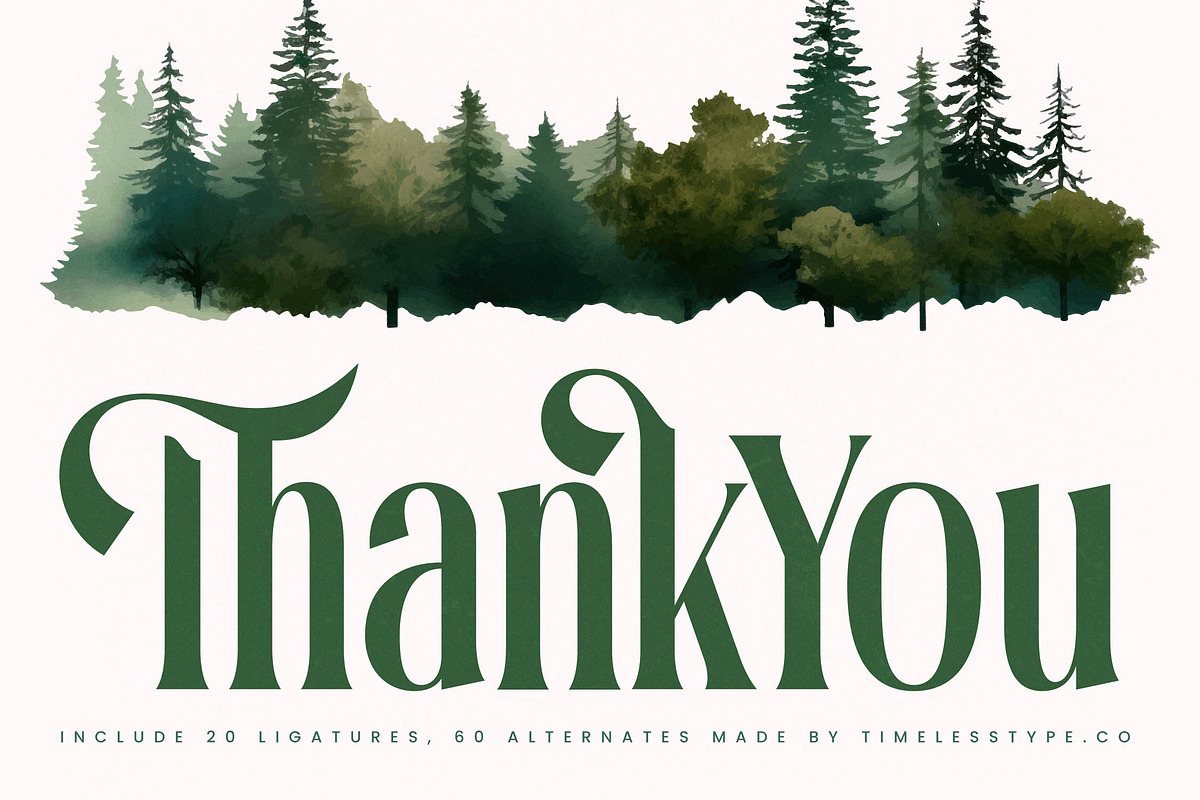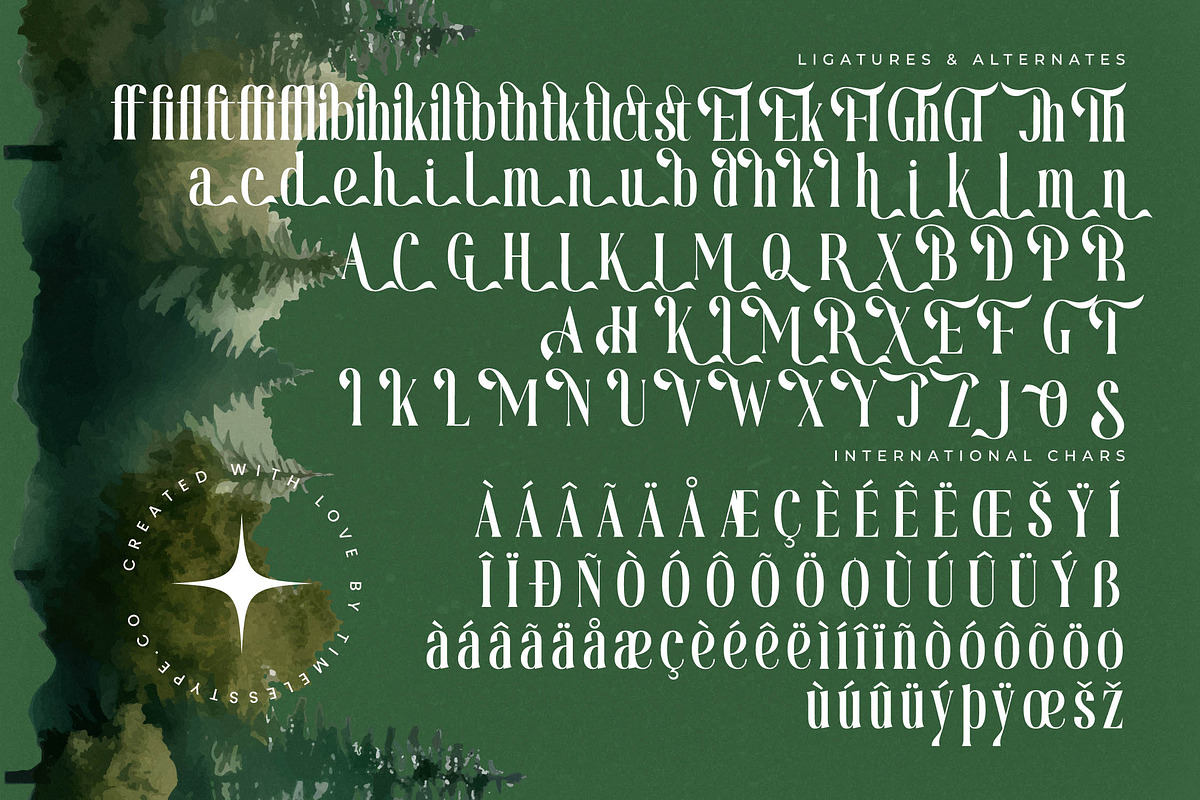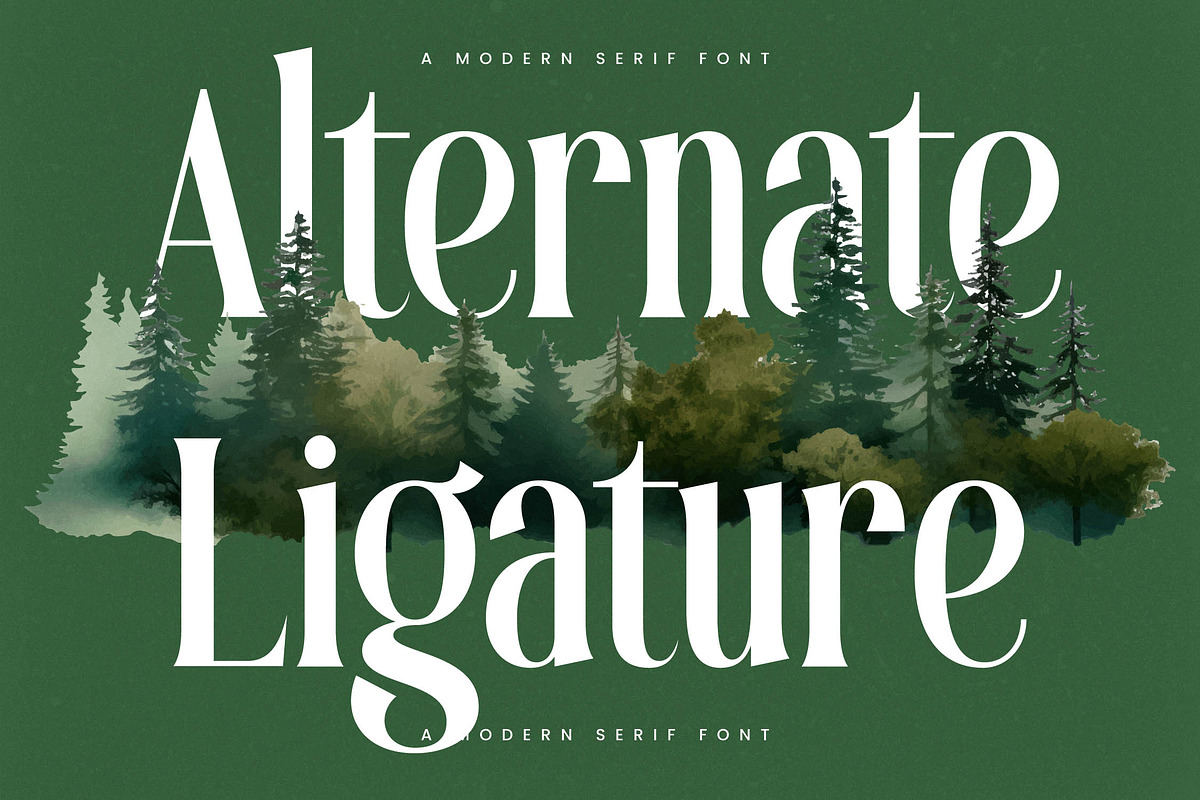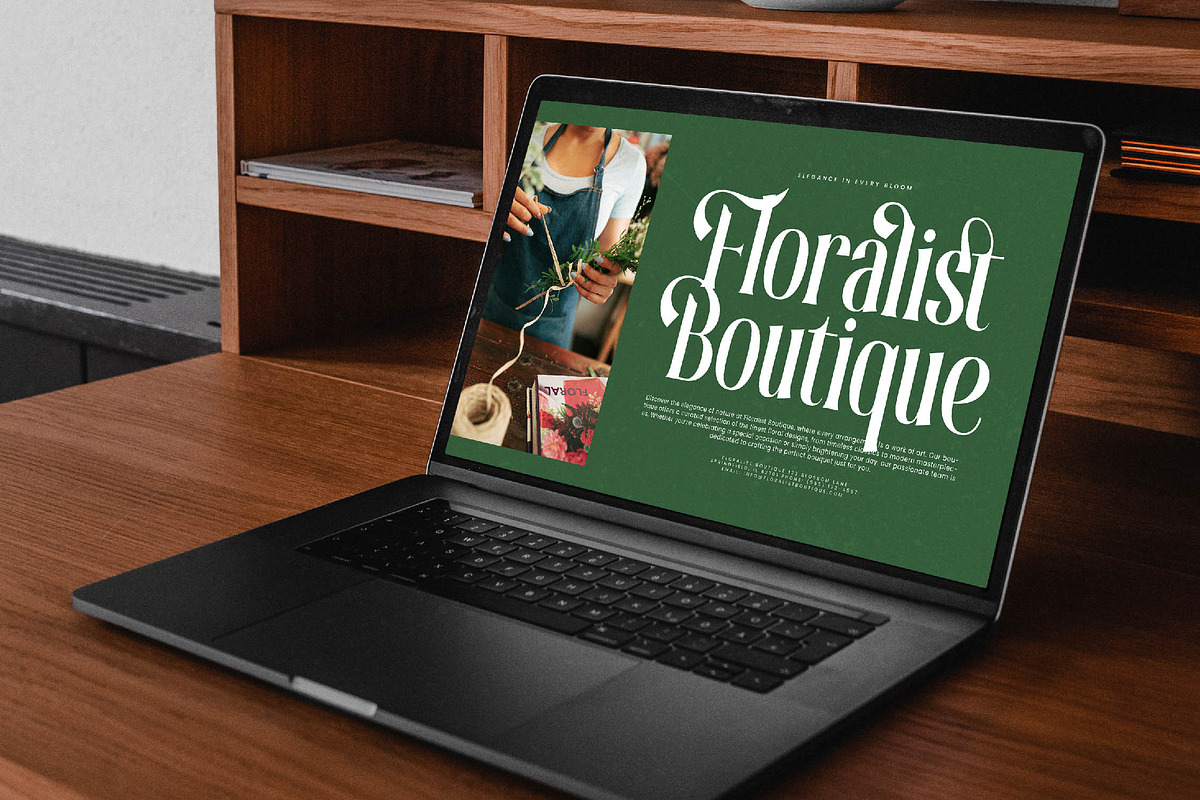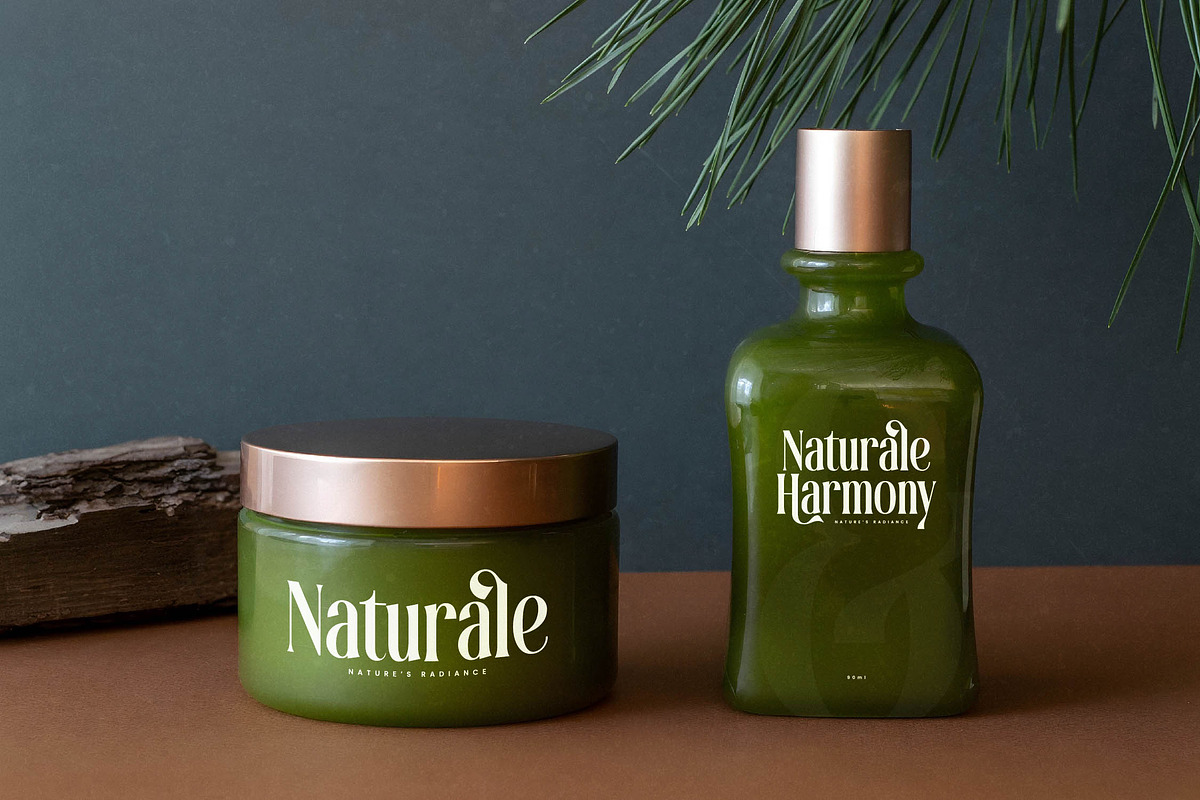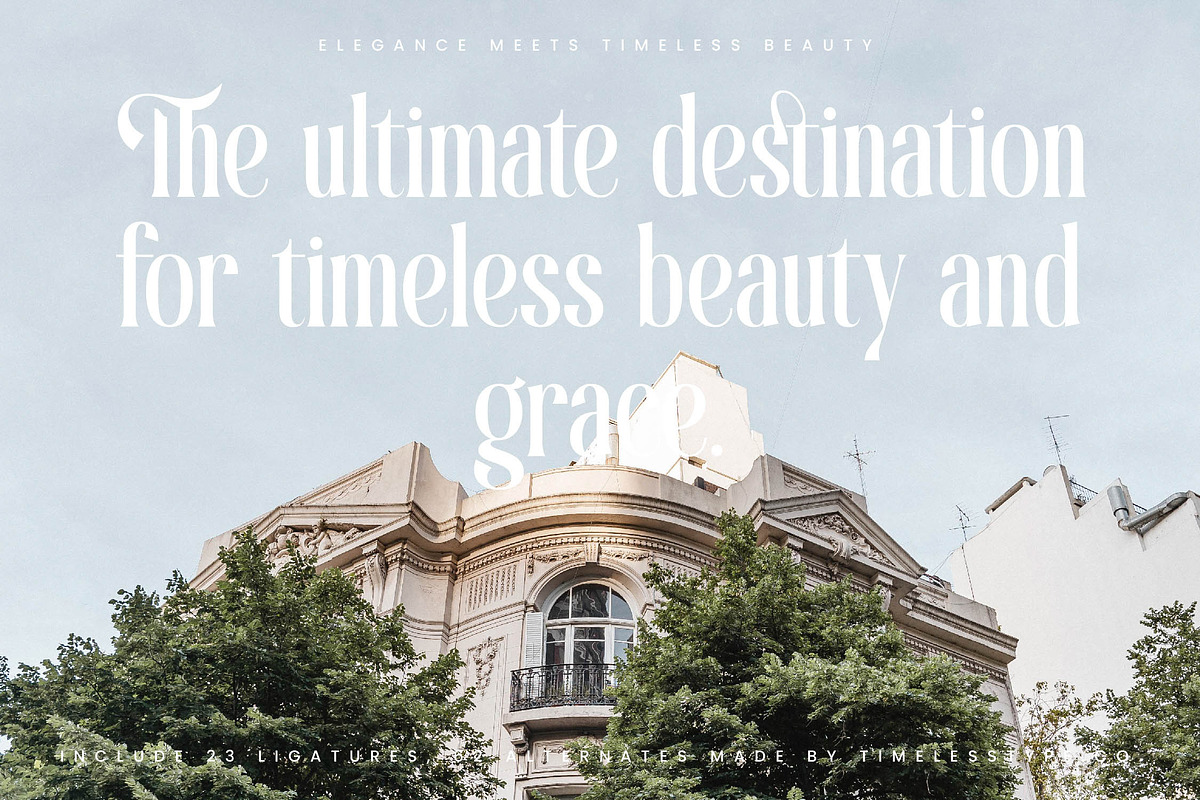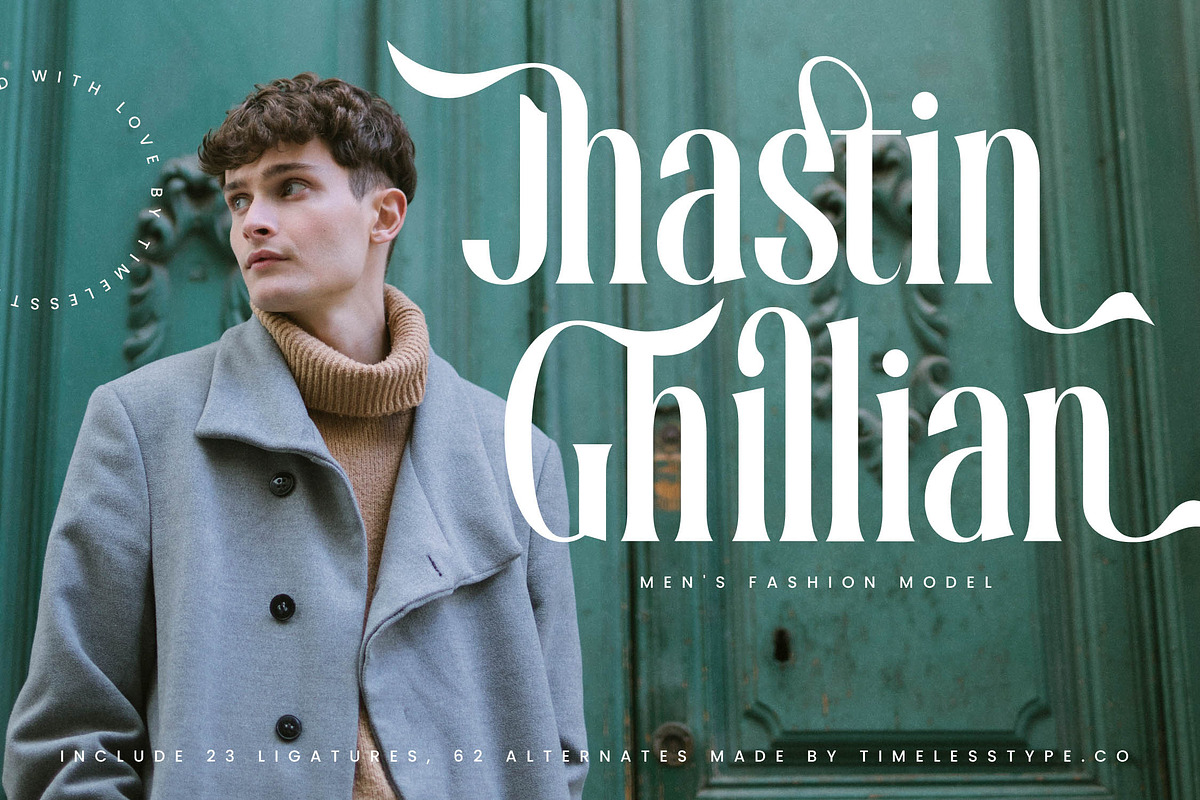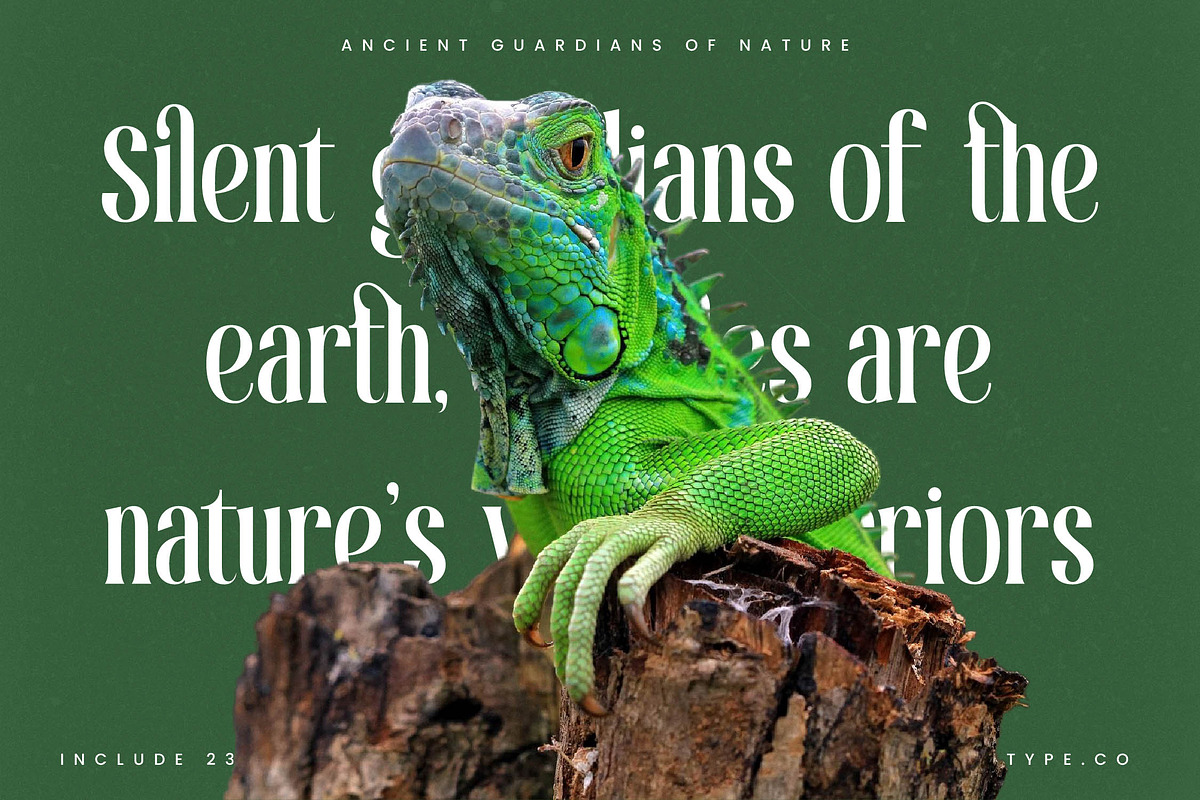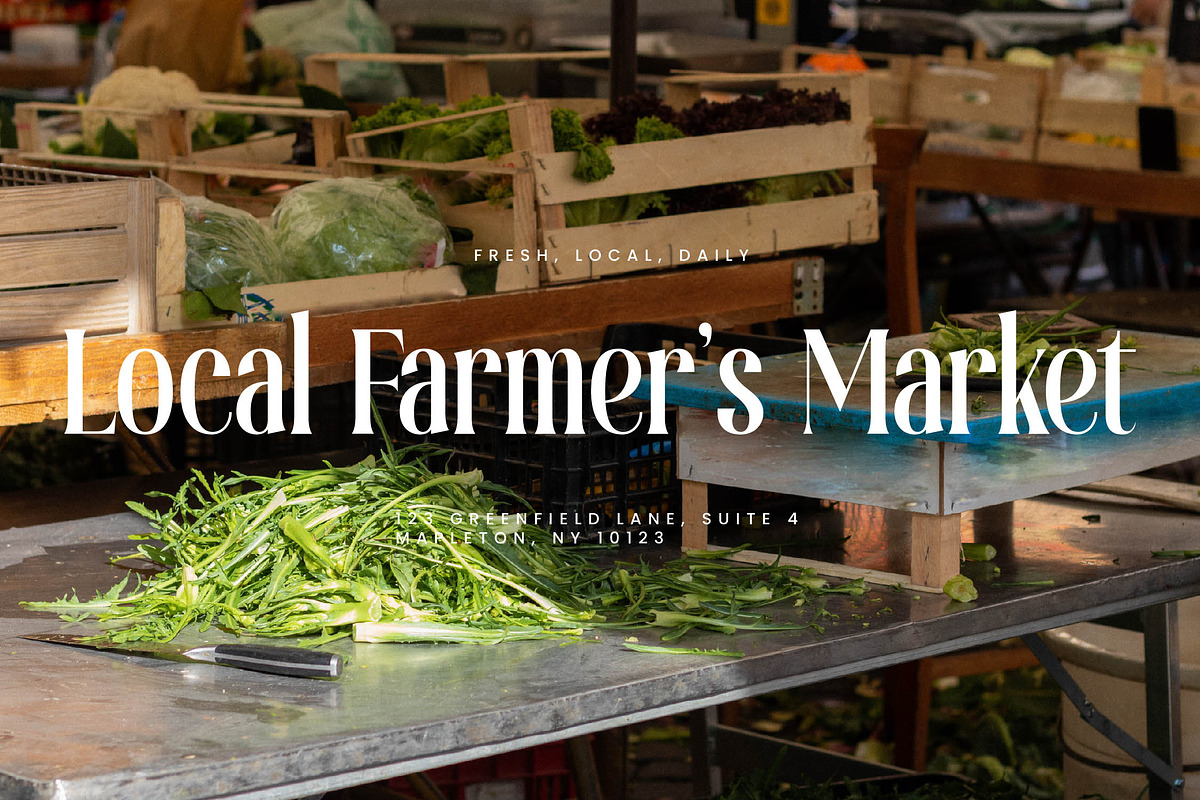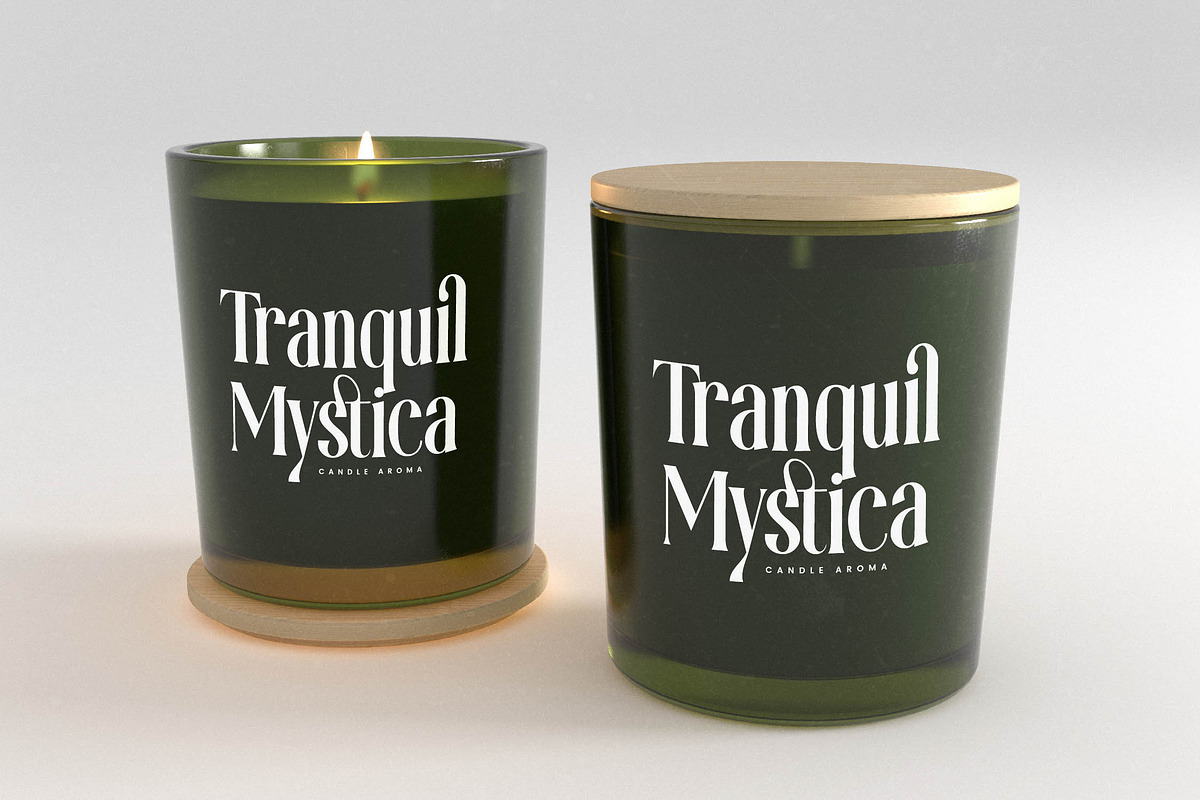
Theforest Modern Serif Font
Step into a world where elegance meets the whispers of the wild. Theforest captures a serene sophistication that breathes life into every character, inviting your audience into a story of timeless beauty and refined grace.
Inspired by the rhythmic dance of ancient pines and the deep, silent allure of a misty woodland, this typeface echoes the organic shapes found in nature. It draws from a heritage of classic beauty while leaning into a future of artistic expression and quiet strength.
This modern serif display exudes a sense of luxury typography through its high-contrast serif strokes and delicate curves. It is an editorial font at its core, designed for branding impact that feels both established and contemporary.
Perfectly aligned with the modern serif trend, this typeface fulfills the growing demand for editorial display fonts that offer more than just legibility. It provides character-driven typography that transforms standard layouts into bespoke works of art.
Tailored for high-end creative projects, it excels in logo design, branding, and editorial layouts where personality is paramount. Its versatile nature makes it a stunning choice for packaging, wedding stationery, and the elevated world of fashion marketing.
This comprehensive kit includes a wealth of ligatures, alternates, and swashes to give your designs a custom, hand-crafted feel. With full multilingual support and a wide array of international characters, it ensures your message resonates globally with premium flair.